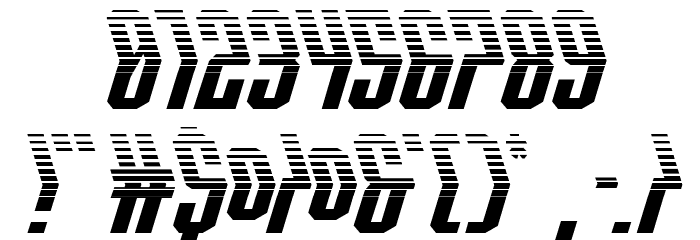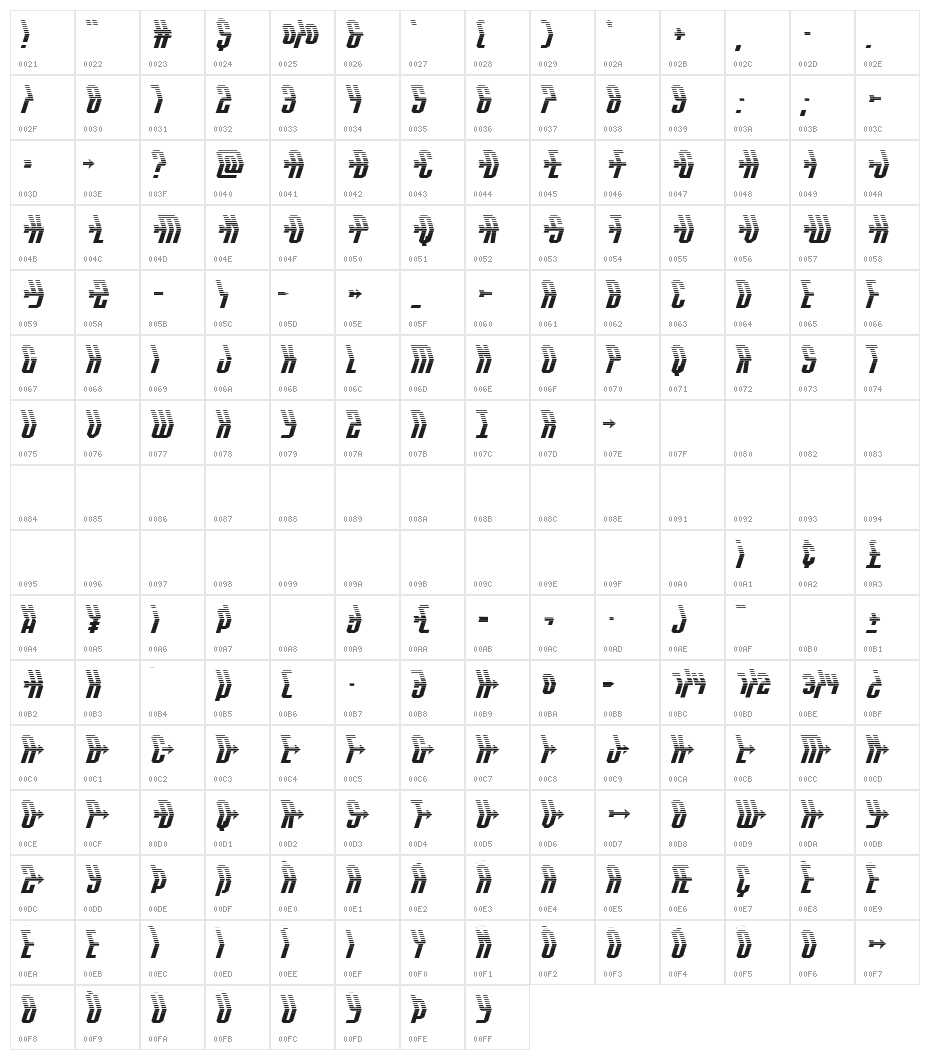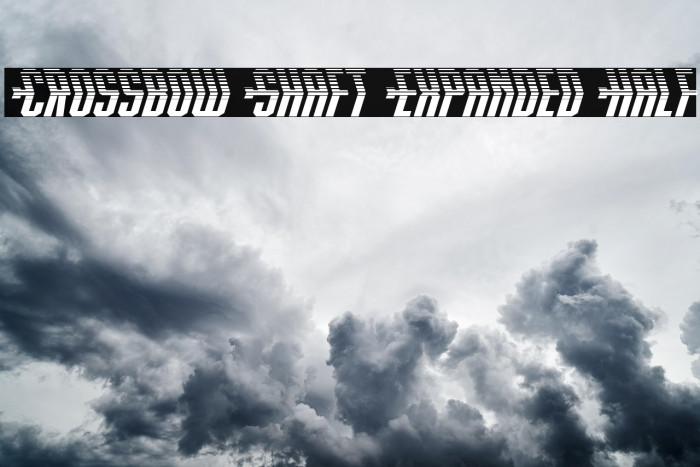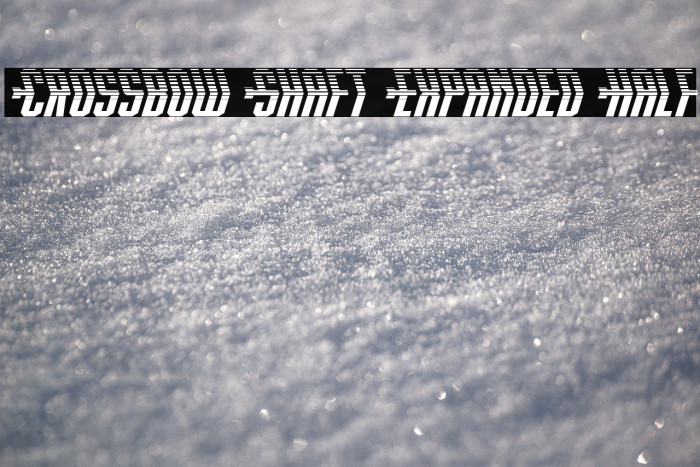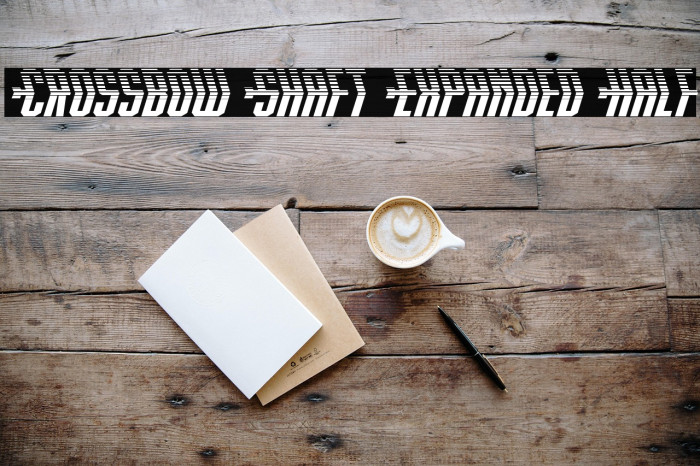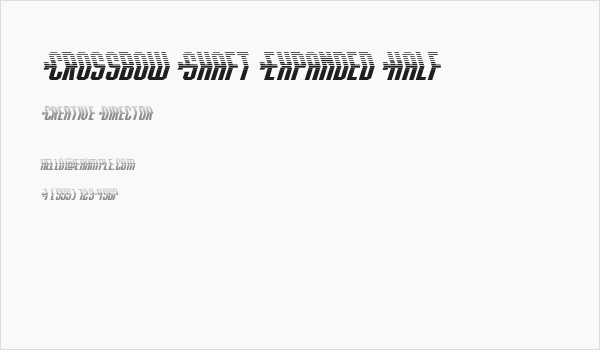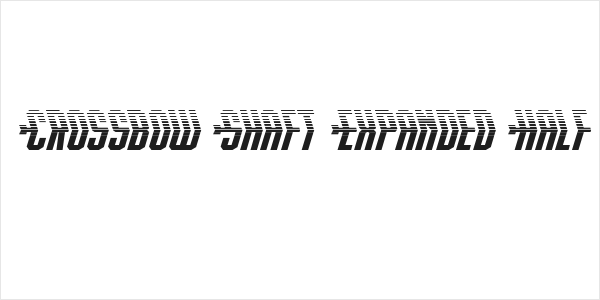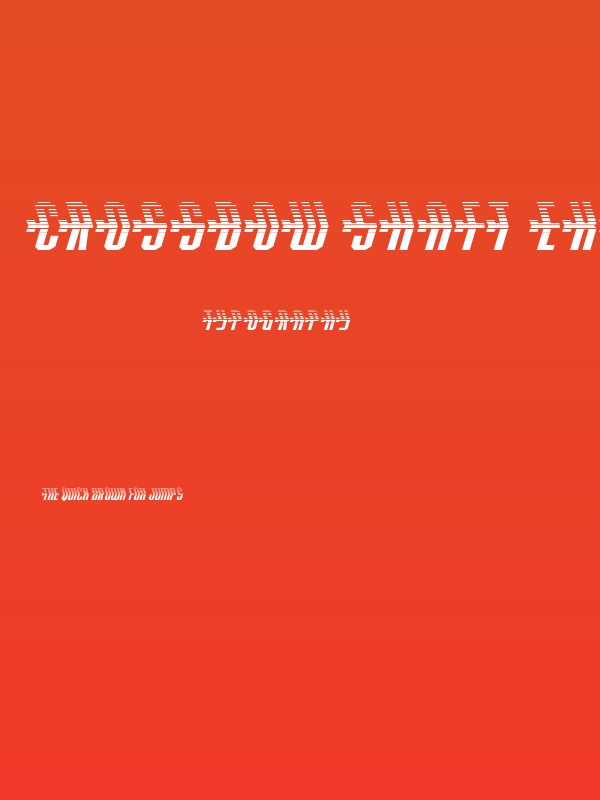
Crossbow Shaft Expanded Half Font
Crossbow Shaft Expanded Half Description
This font features a bold, futuristic design with a distinctive expanded style. Each character is constructed with a series of horizontal lines that create a dynamic, layered effect. The uppercase letters are particularly striking, with sharp angles and a sense of forward motion. The numbers and special characters maintain this aesthetic, ensuring consistency across all glyphs. The font's unique appearance makes it ideal for projects that require a modern, edgy look.
Proposed ProjectsIdeal for sci-fi themed projects, video game titles, technology branding, and modern posters.